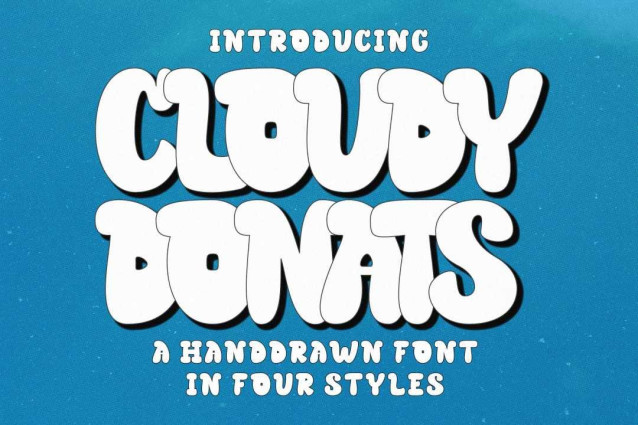
Cloudy Donats Font
Cloudy Donats Font is a display font style that emulates the appearance of hand-drawn graffiti lettering. Its letters have a rounded and bubbly shape, giving them a bold and playful look. This font is particularly suitable for designs that have an informal or urban theme, such as posters, flyers, and street art. The graffiti bubble font can add a lively and vibrant touch to your design, making it stand out and reflect a unique personality. Additionally, the font comes in three different styles: regular, outline, and extrude, italic, providing you with various options to choose from.